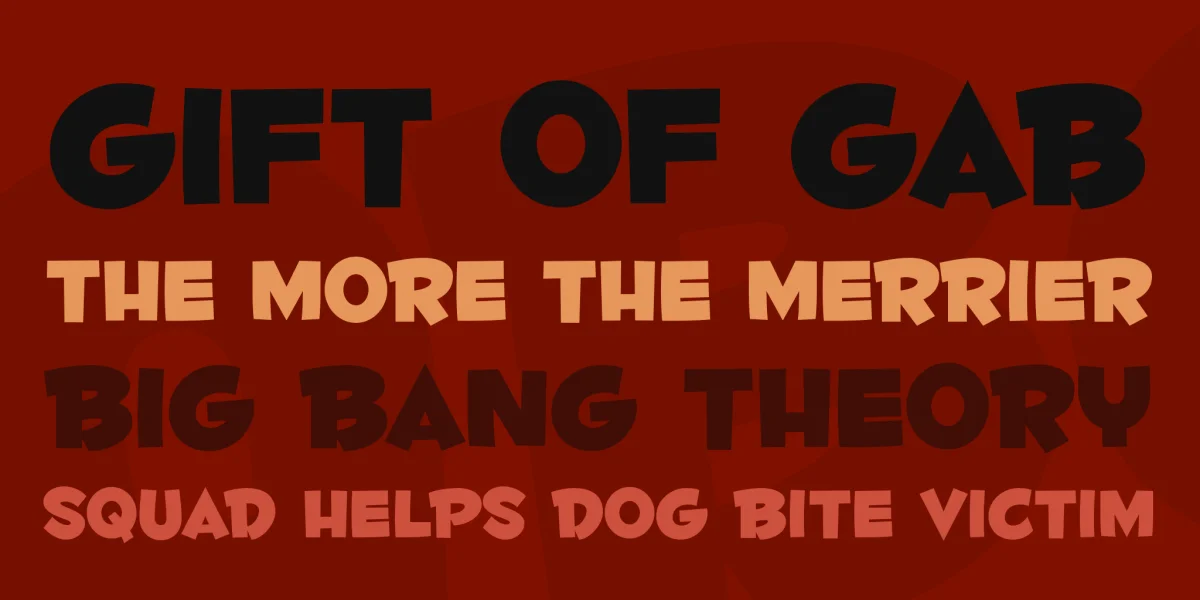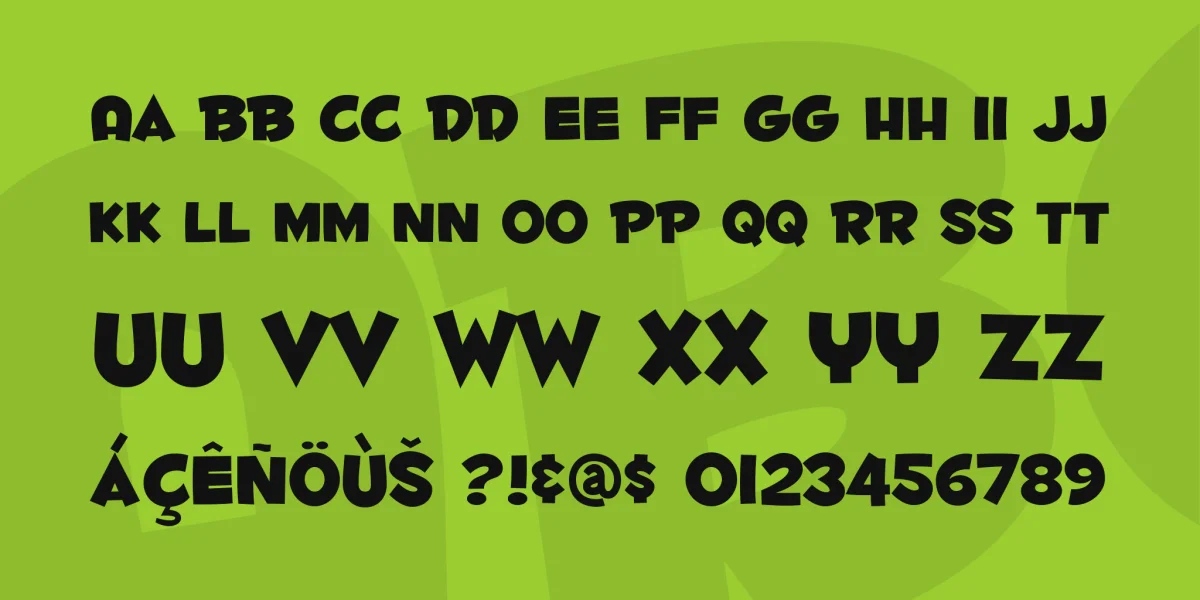
Wrap your arms around this chunky, squeezable, huggable font and add some heavy lovin' to your design projects! Commercial license is available at MyFonts.